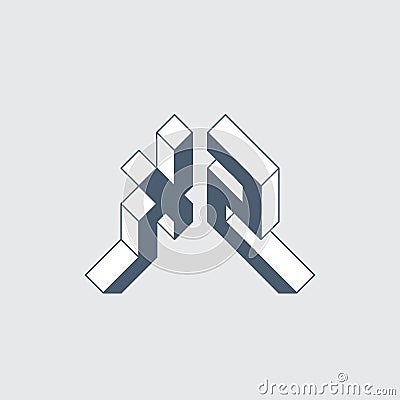
X2 - Monogram Or Logotype. Isometric 3d Font For Design. Three-dimension Letters. X And 2 Vector Logo
X2 - monogram or logotype. Isometric 3d font for design. Three-dimension letters. X and 2 vector logo #202777305
X2 - monogram or logotype. Isometric 3d font for design. Three-dimension letters. X and 2 vector logo.